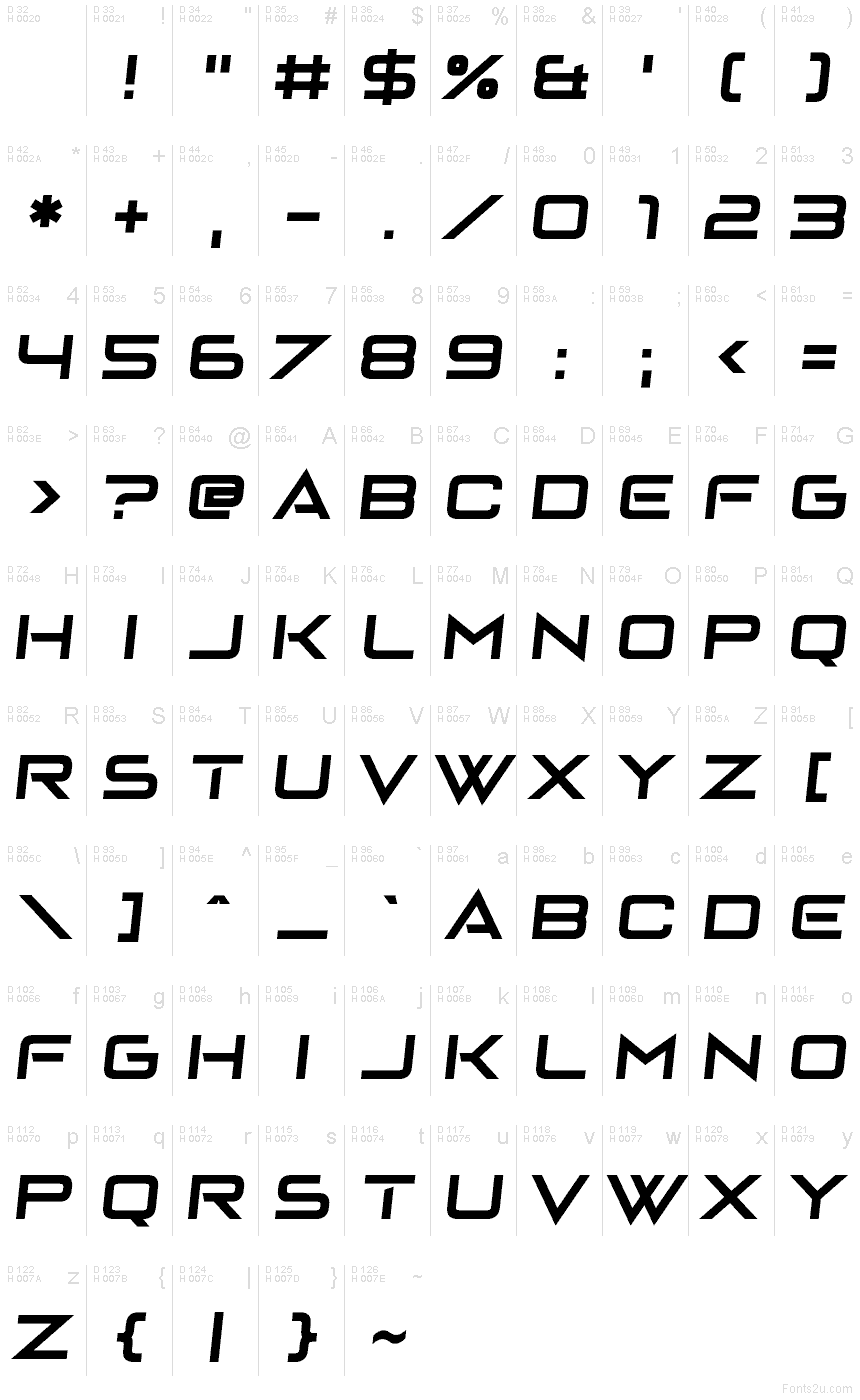
Spiced Rum Supernova
Spiced Rum Supernova font by Chequered Ink is a techno display font with an imaginative and futuristic spirit. The font is expanded and geometric with angular modern characters that carry a tech-inspired aesthetic. Its precise architecture, complexity, and impeccable style make it ideal for titles, logos, headlines, signs, posters, banners among other things.